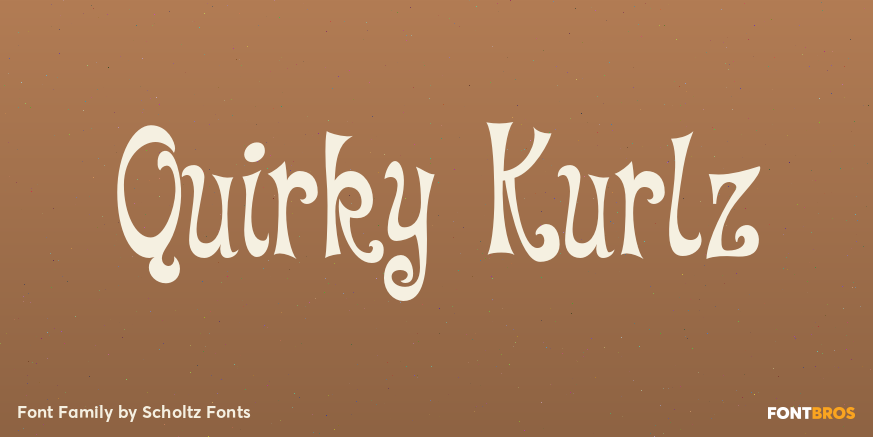
Quirky Kurlz
About Quirky Kurlz
Quirky Kurlz is a cute, curly, vintage font. It\’s light hearted and funny, rounded and retro. Rounded characters, curly loops and undulating baseline work together to give a lively, look-at-me impression. Use Quirky Kurlz for branding, packaging, girls…